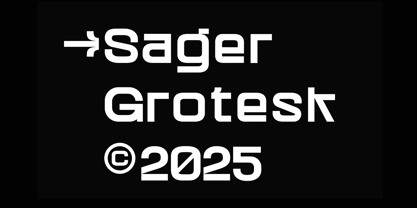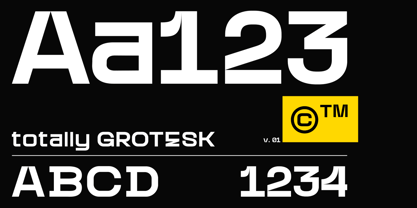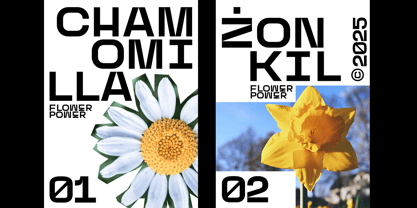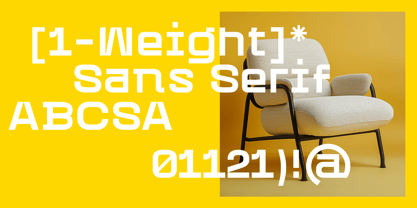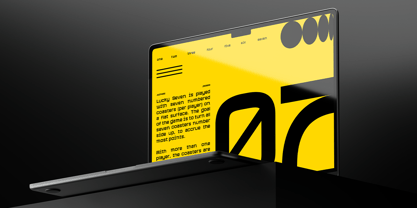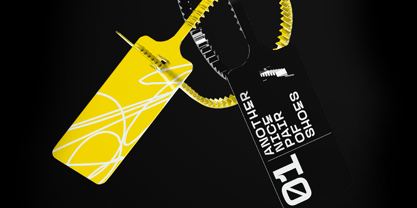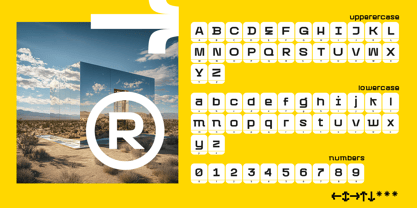
Sager Grotesk
The Sager Grotesk Font Family was designed by Konrad Łukasiak and published by Typophobia. Sager Grotesk contains 1 styles. More about this family
Sage Grotesk is a versatile sans serif typeface featuring 301 glyphs. While designed primarily for display purposes, it is also suitable for typesetting short texts. The font draws inspiration from classic Grotesk typefaces, enhanced with unique twists in individual letters to set it apart. Its thick, wide, and simple glyphs, reminiscent of a bold version, make it an excellent choice for headlines and branding applications. Ideal for editorial design, web use, and any project requiring a modern, clean aesthetic, Sage Grotesk stands out with its distinctive character and readability.